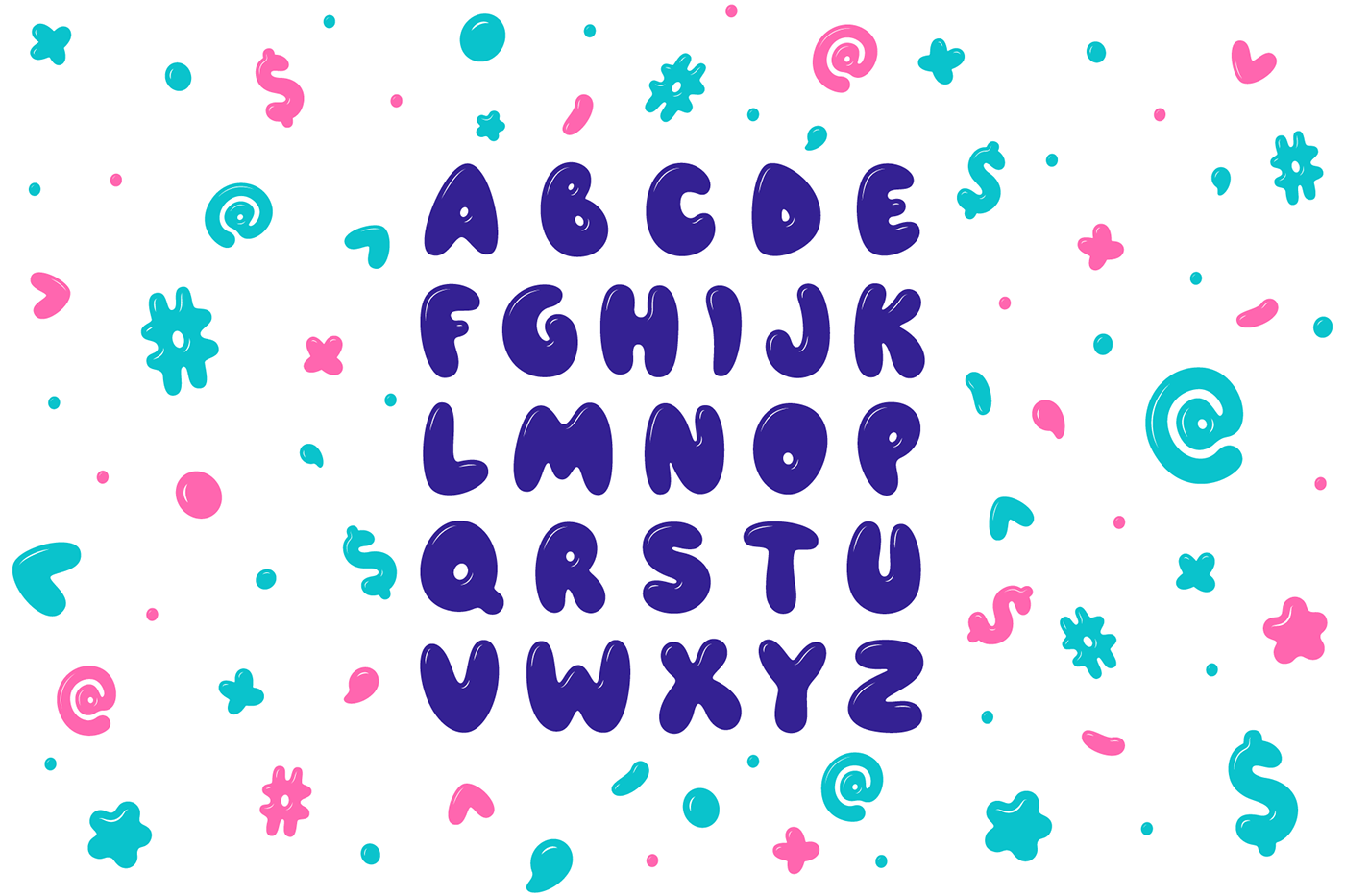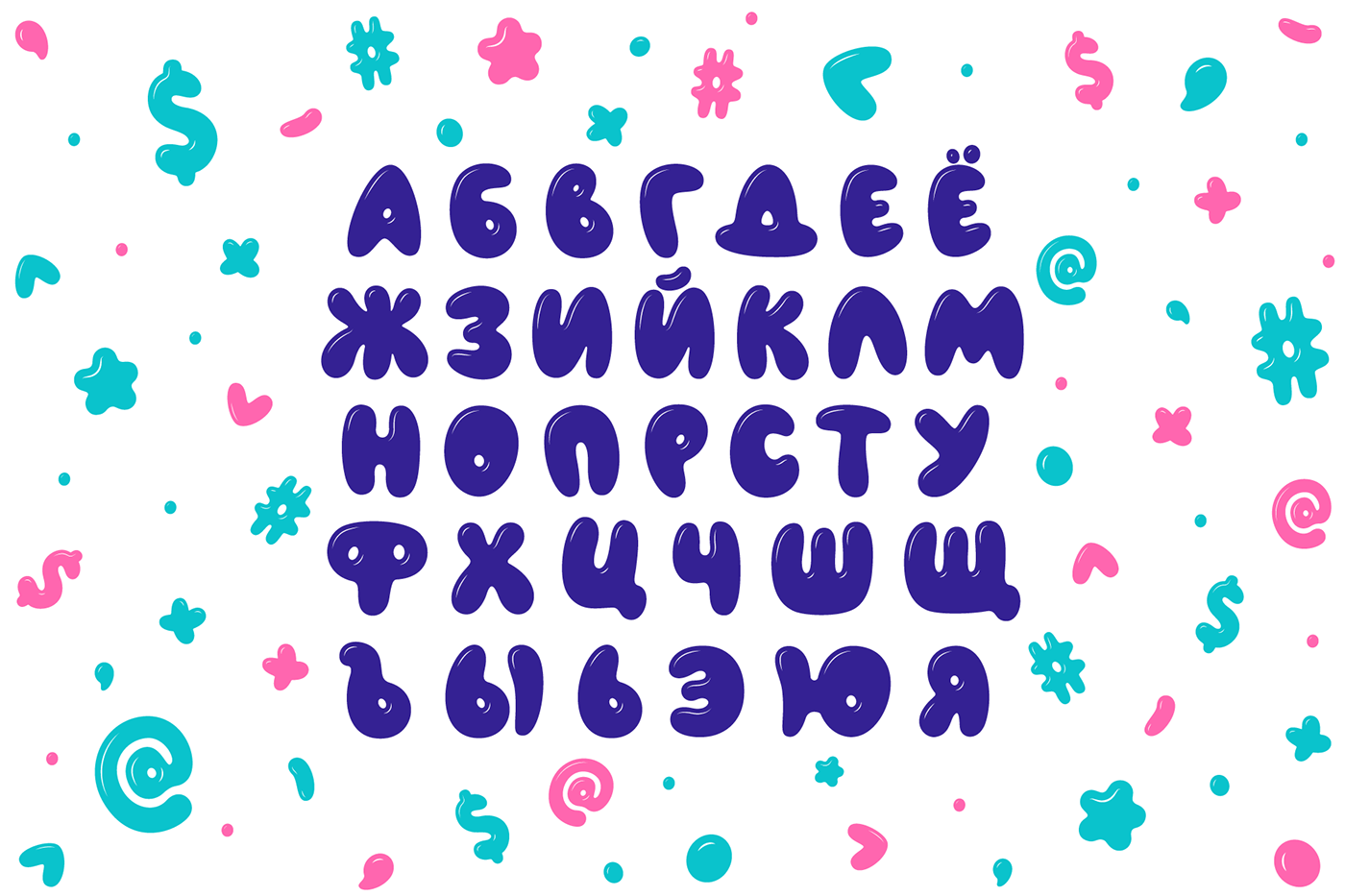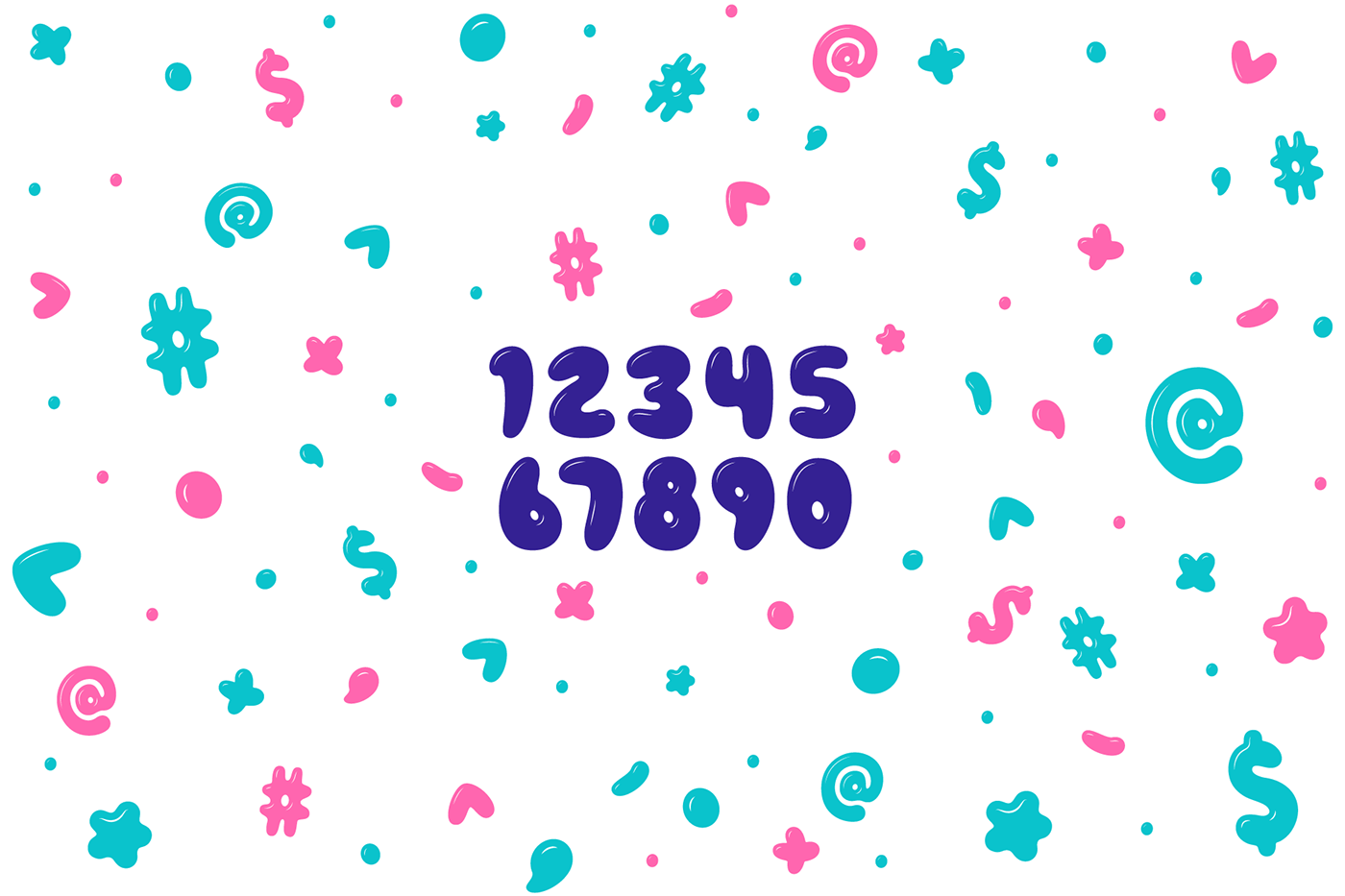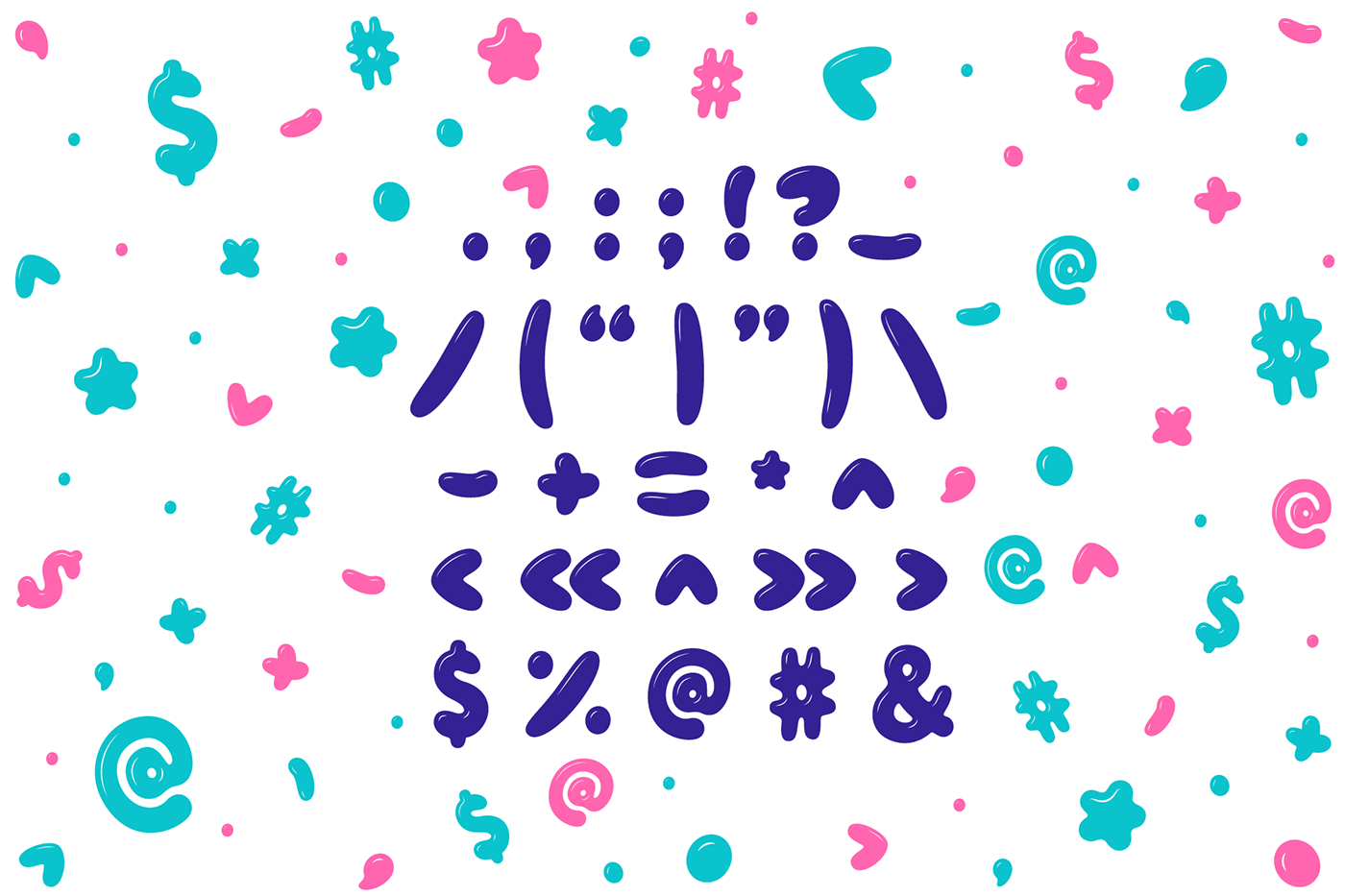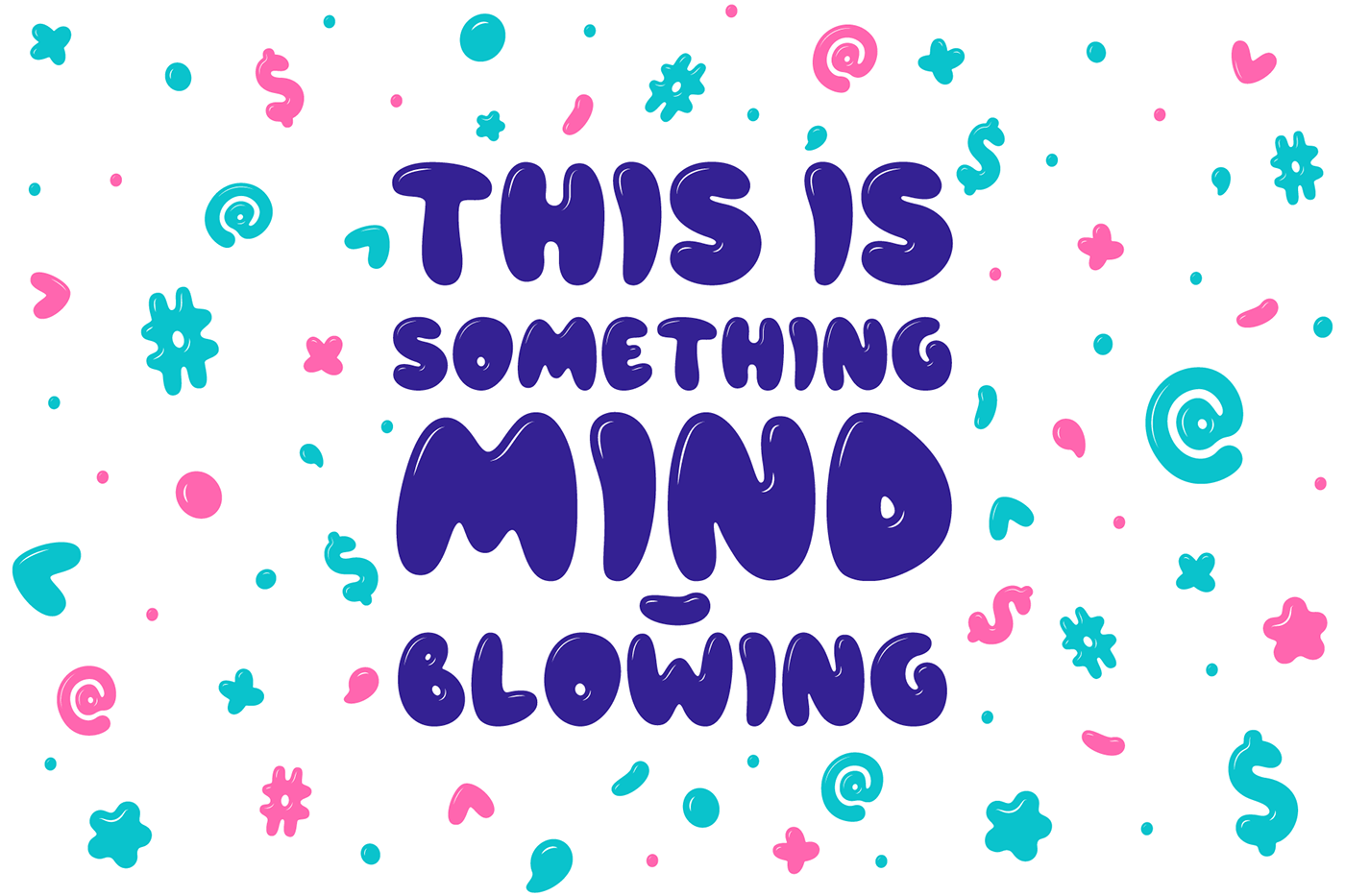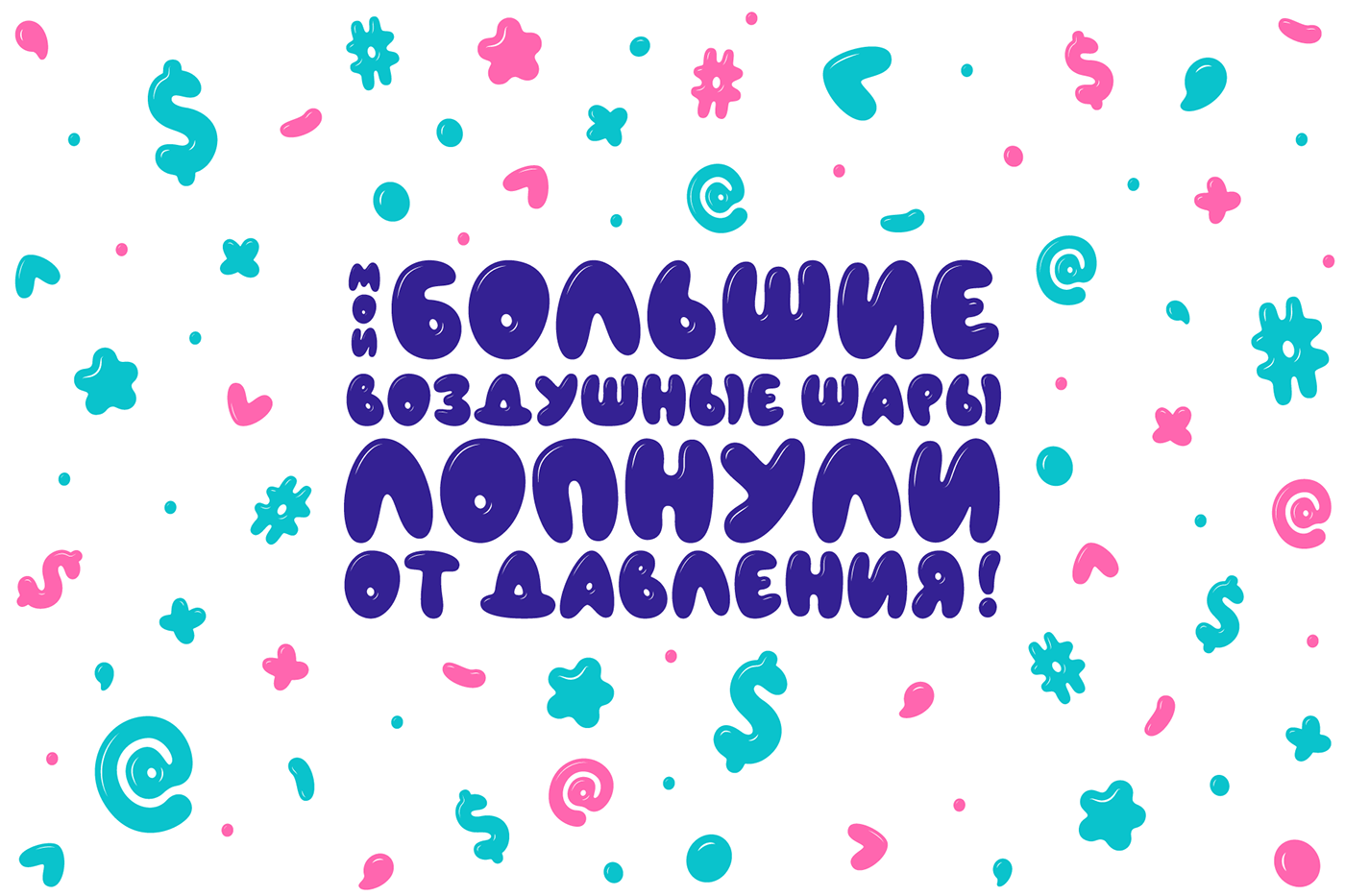
Let your artwork truly tell a funny story thanks to the beautiful display type Airfool! Created by TimXez, this beauty works perfectly on packaging, advertising, posters and more. Free for personal and commercial use!